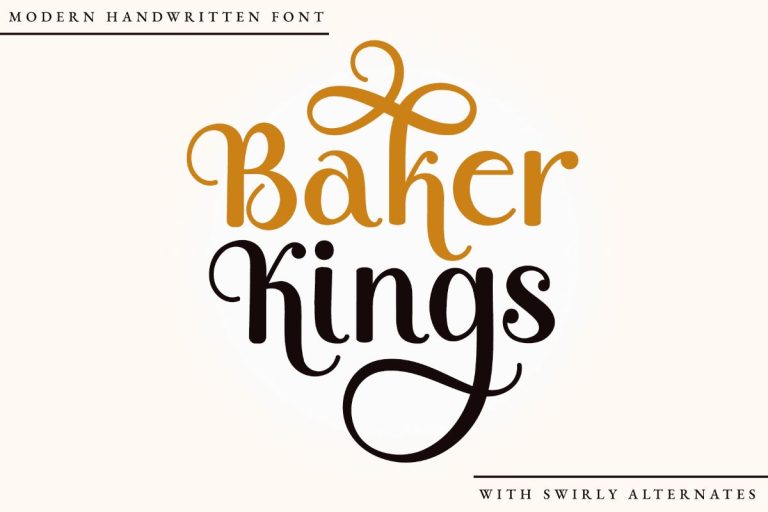
- Baker Kings
Baker Kings is modern classic handwritten font. It has elegant style with feminine and fancy vibes.
This font has lots of swirl swash/extra glyphs. It will give lots of options in designing.
Baker Kings is beautiful font for wide ranges design, such as wedding, invitation, sublimation, poster, greeting cards, birthday, t-shirt design, farmhouse design, and others.
- Uppercase and Lowercase (includes extra glyphs / swash)